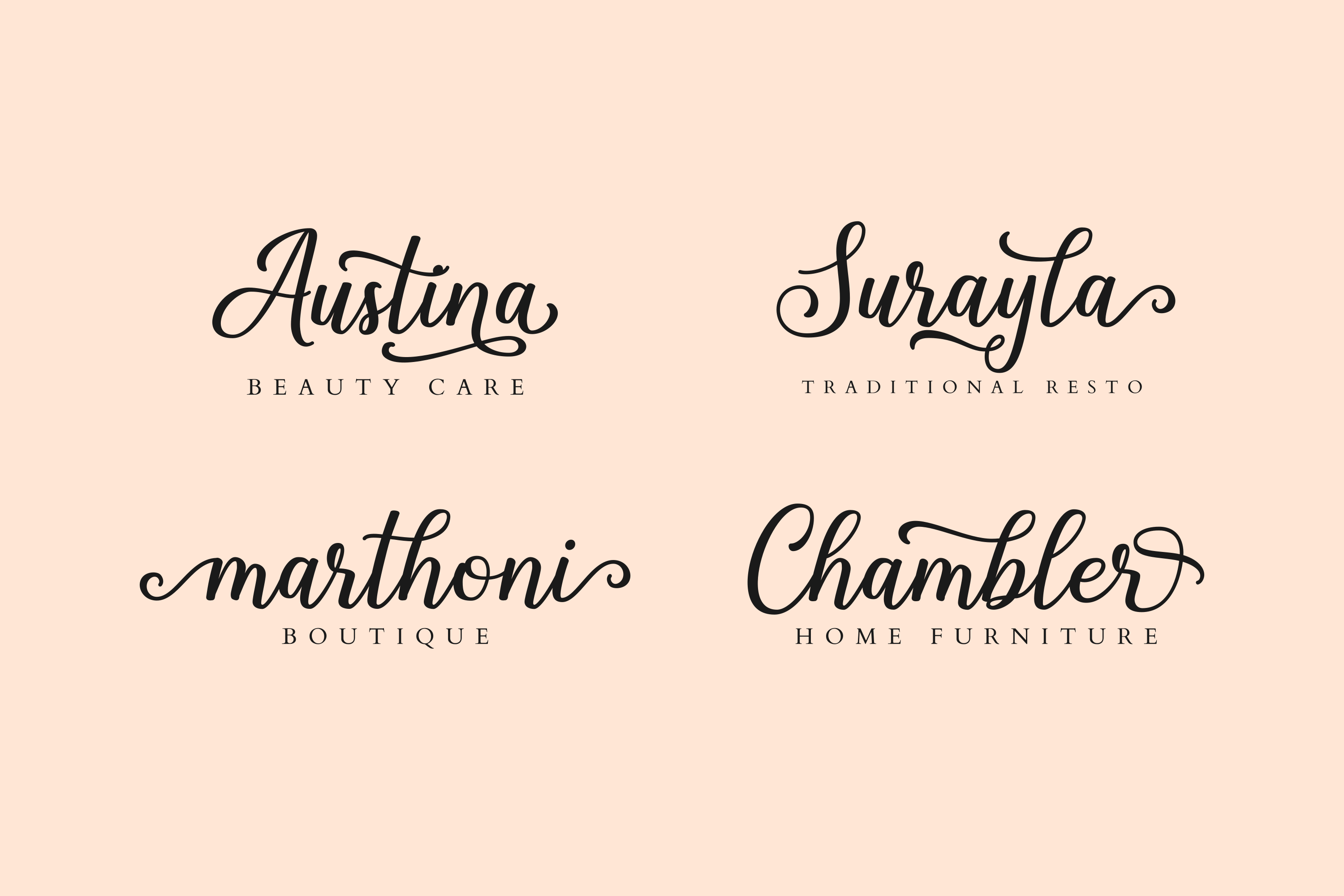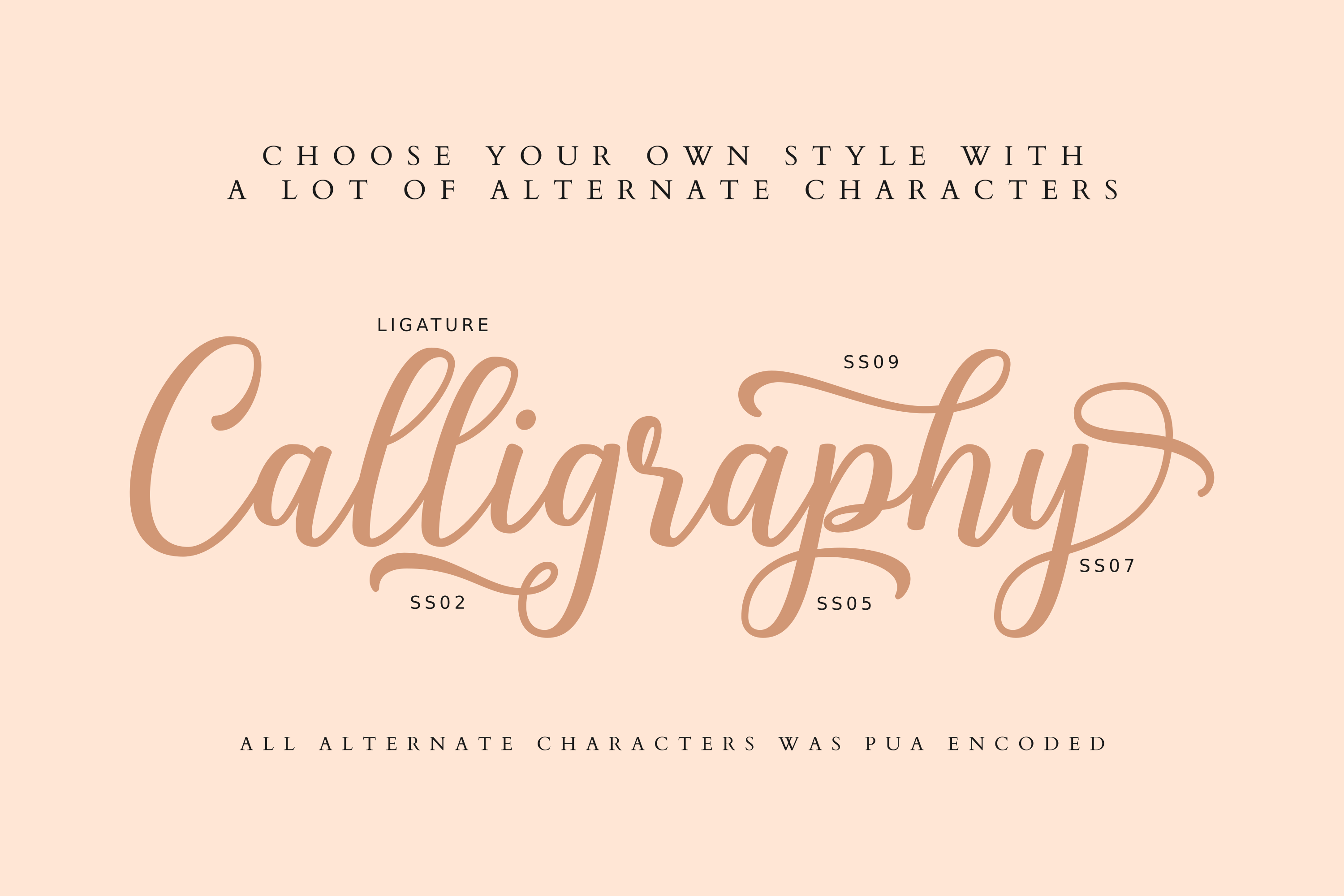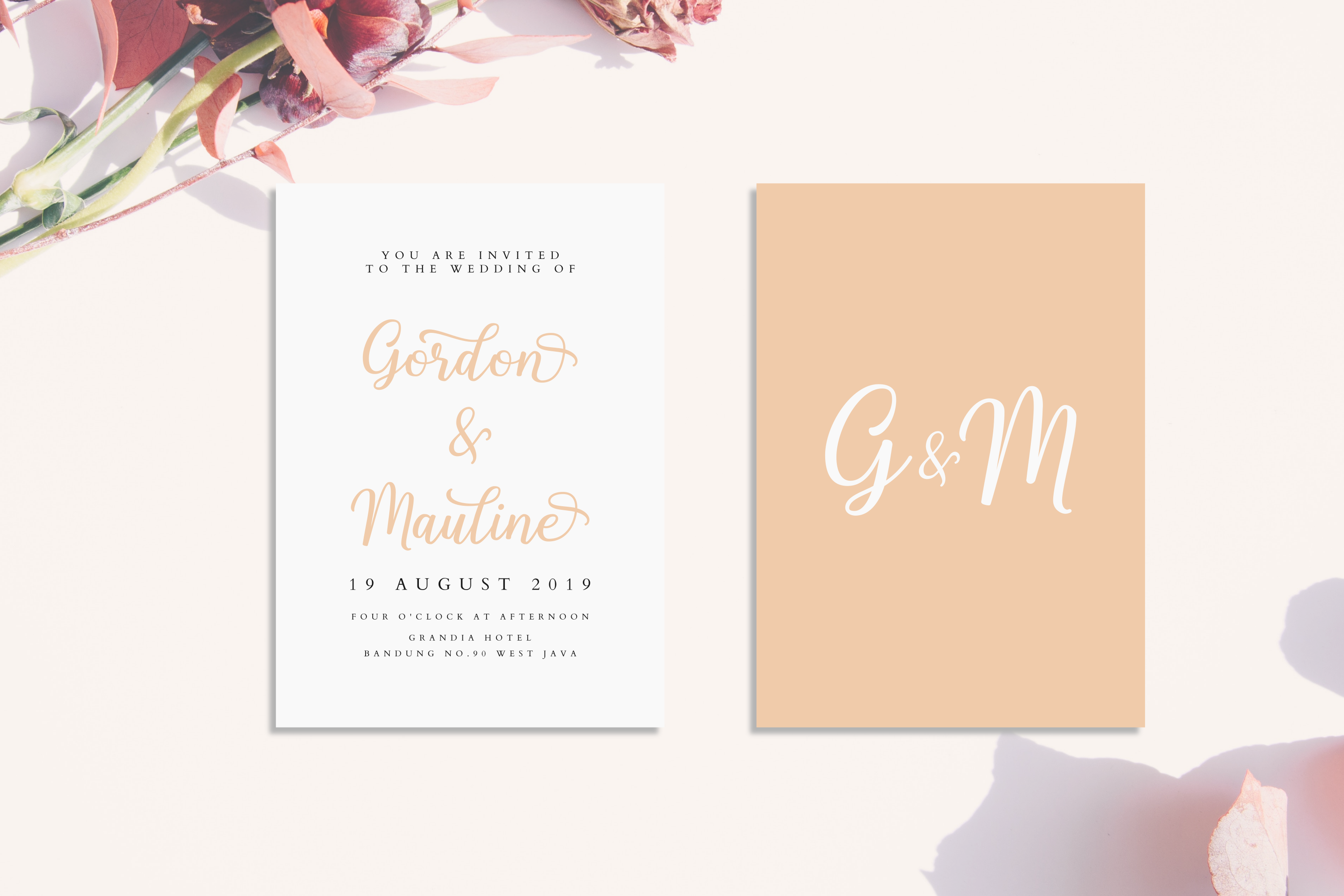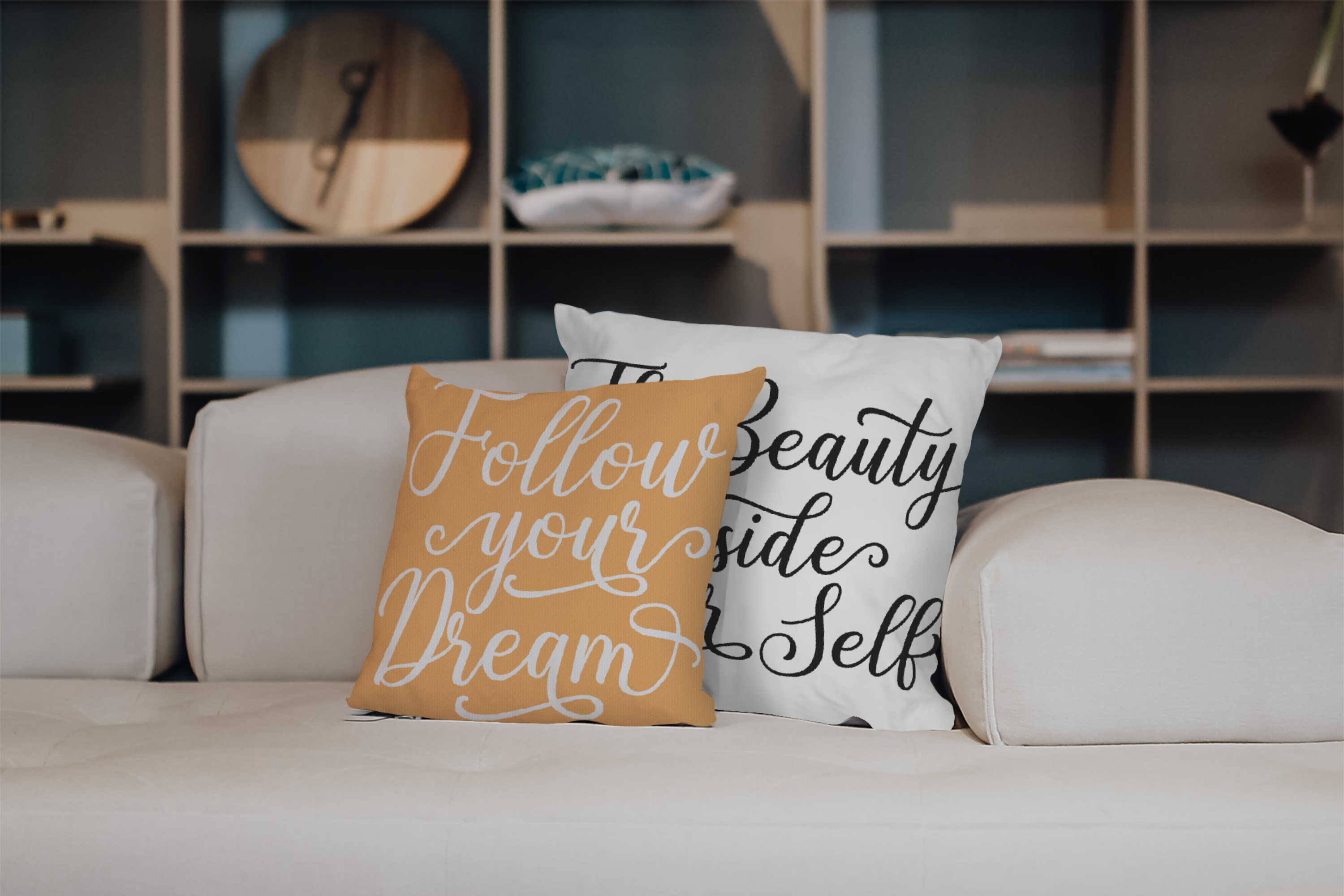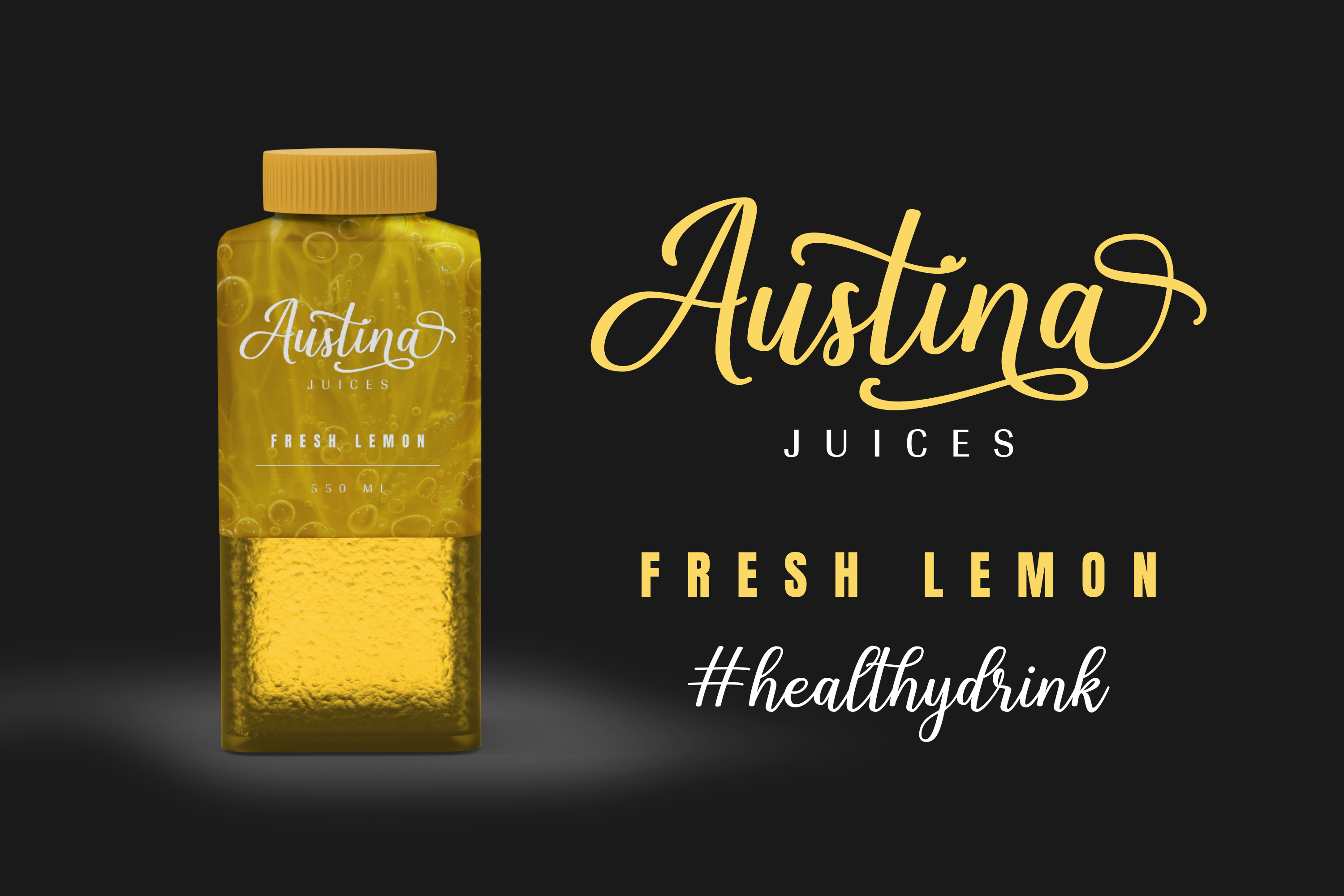
Shalinta - Calligraphy Font
Shalinta is a beautiful calligraphy font with elegant alternates. It helps you create more graceful and eye-catching designs with a personal handwritten touch.
Shalinta is a beautiful calligraphy font with elegant alternates. It helps you create more graceful and eye-catching designs with a personal handwritten touch. It is great for logos, invitations, wedding designs, branding, greeting cards, quotes, and more.
Logos, invitations, wedding designs, branding, greeting cards, quotes,